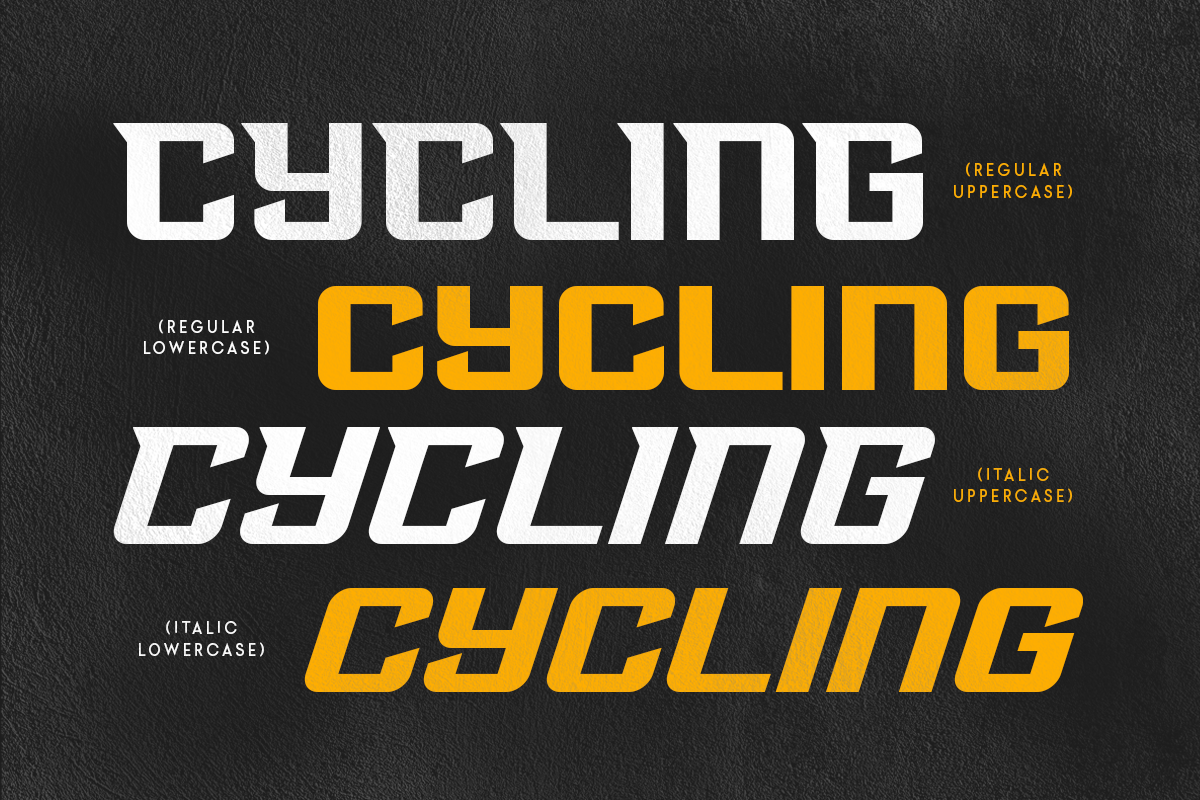
Cycling - Modern racing font
Cycling: The bold racing font designed to dominate sports branding and high-octane headlines. This sport racing car font was crafted specifically for branding, titles, and standout typography that demands attention. Perfect for sport, technology, action, and fighting themes, Cycling delivers bold action style with a modern edge that makes your main concept impossible to ignore. Ready to fuel your creative projects with: Regular & Italic styles with normal and stylistic alternate characters 4...